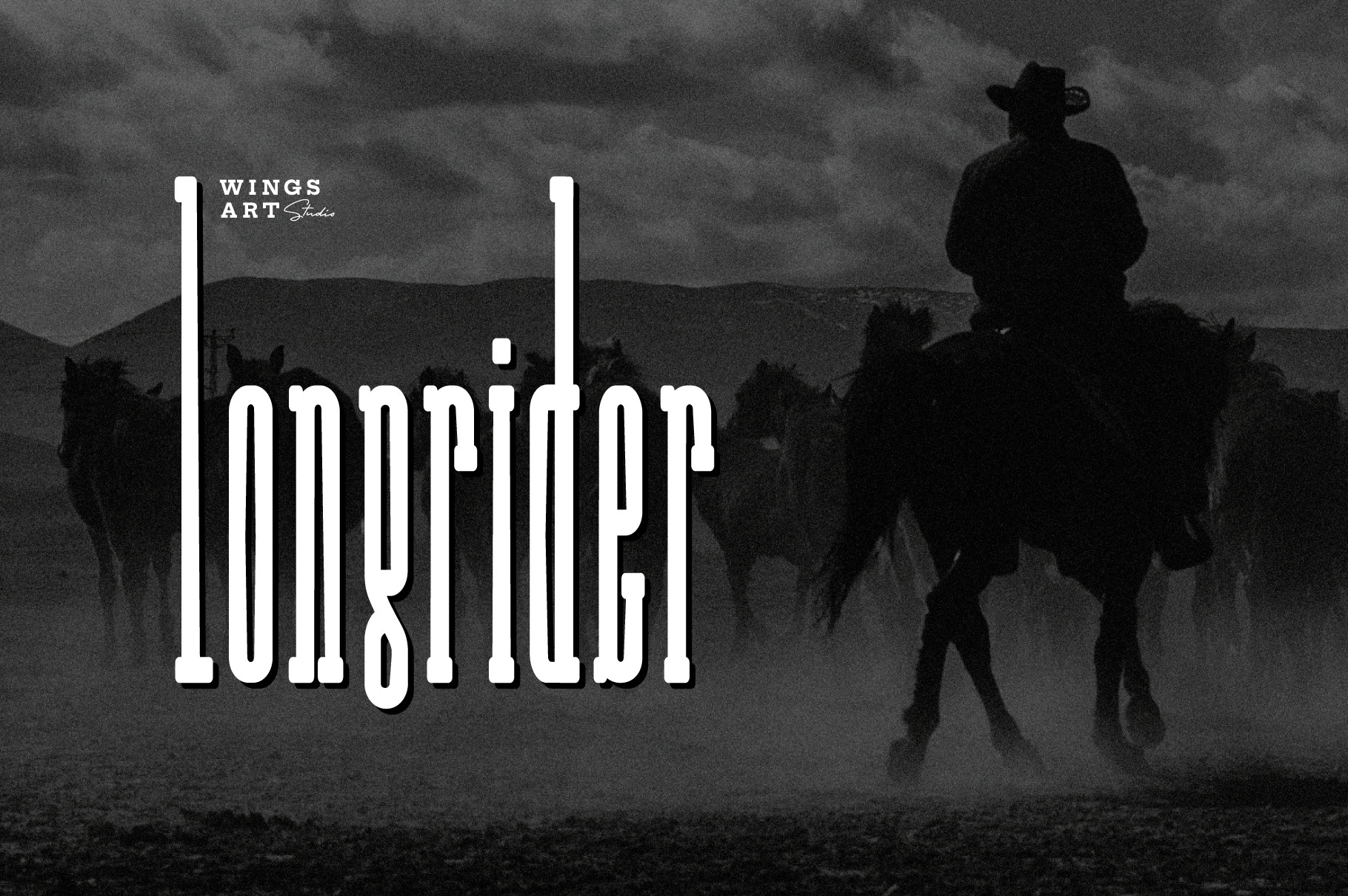
Long Rider - The Cowboy Font
A compressed slab font forged from grit and leather.
Inspired by a nostalgic cowboy style this font stands tall and ready for your titles, logos and social media layouts. Particularly suited to portrait designs, this text looks great filling the screen of Instagram stories or epic widescreen productions.